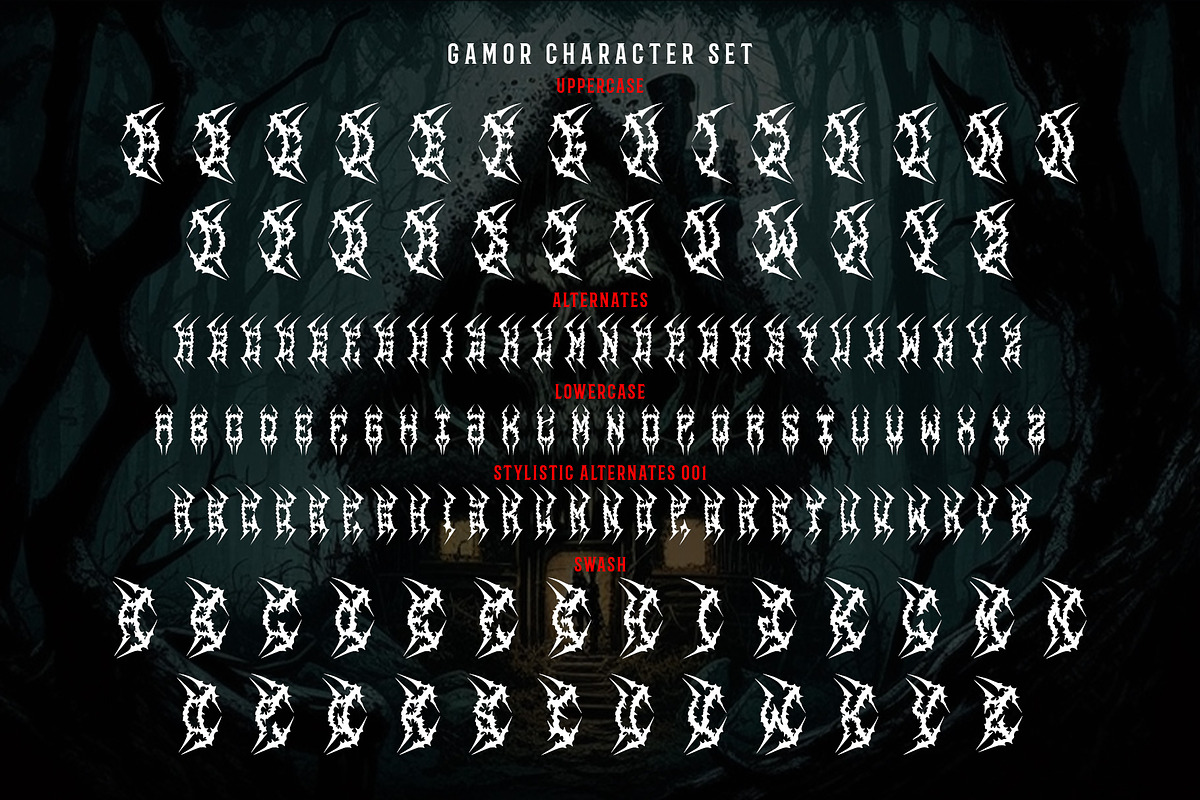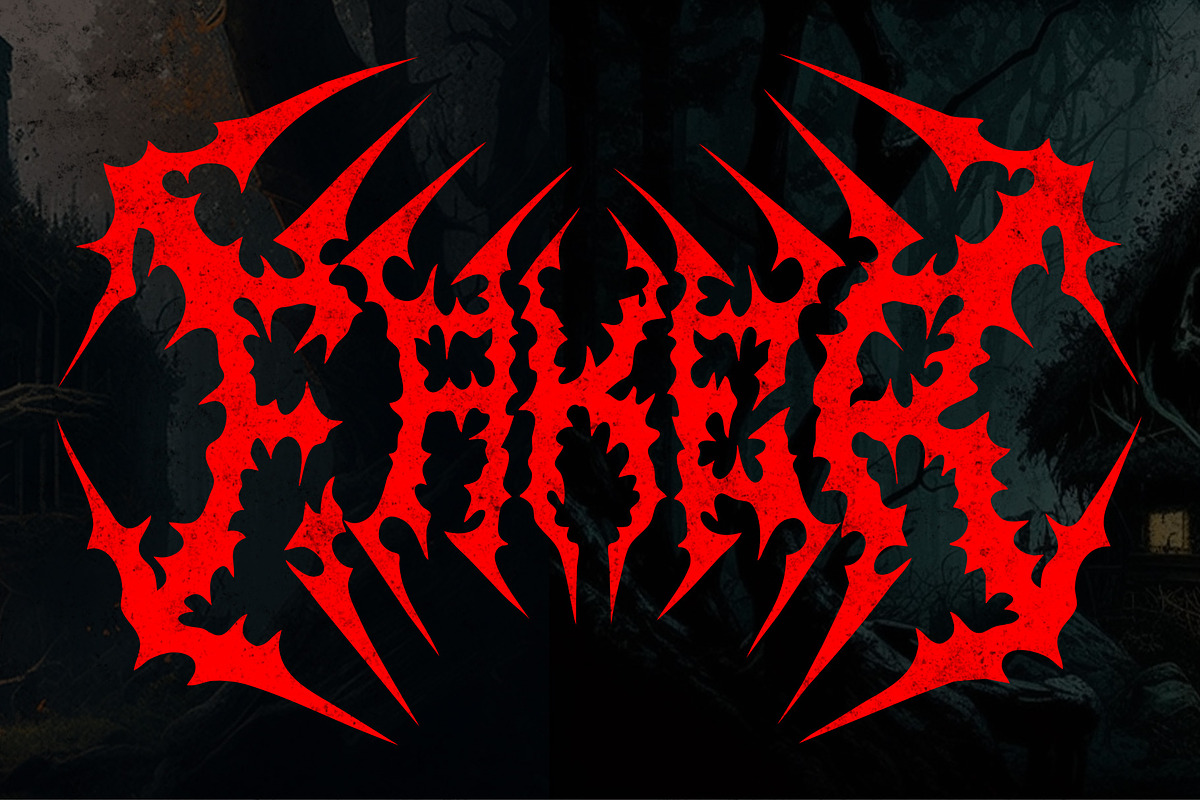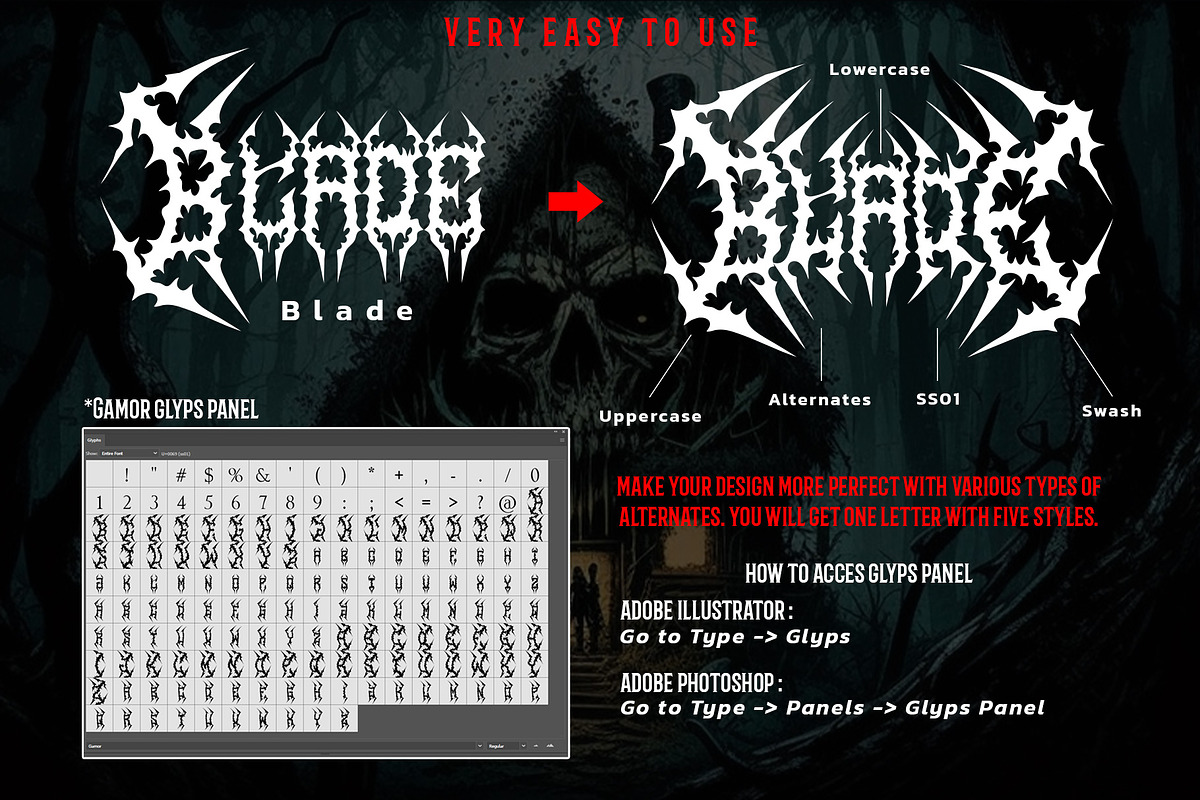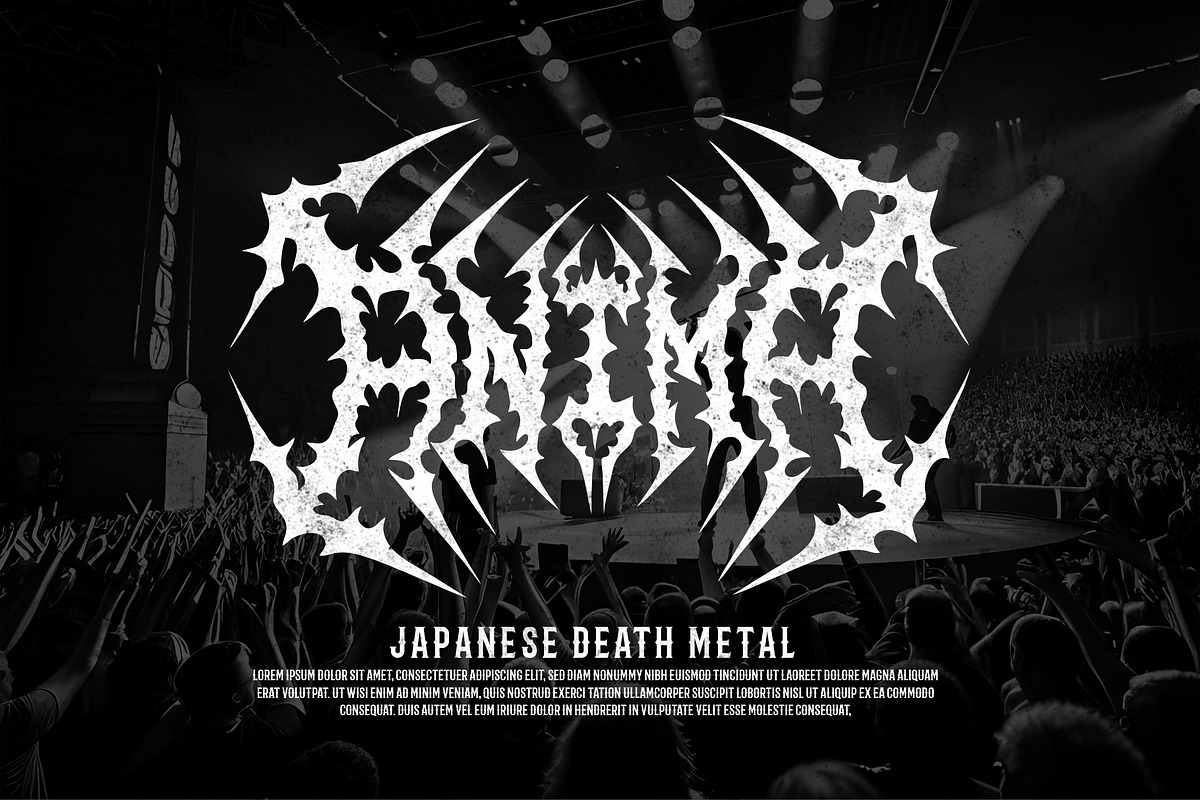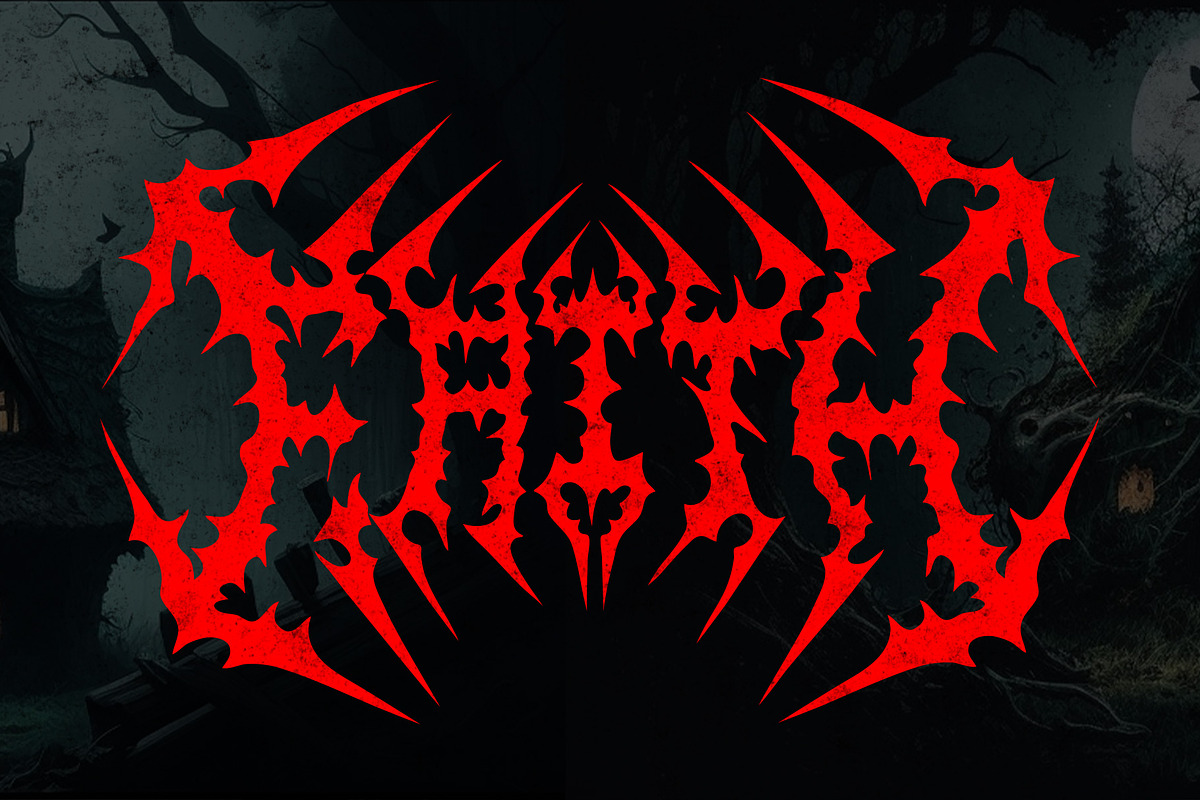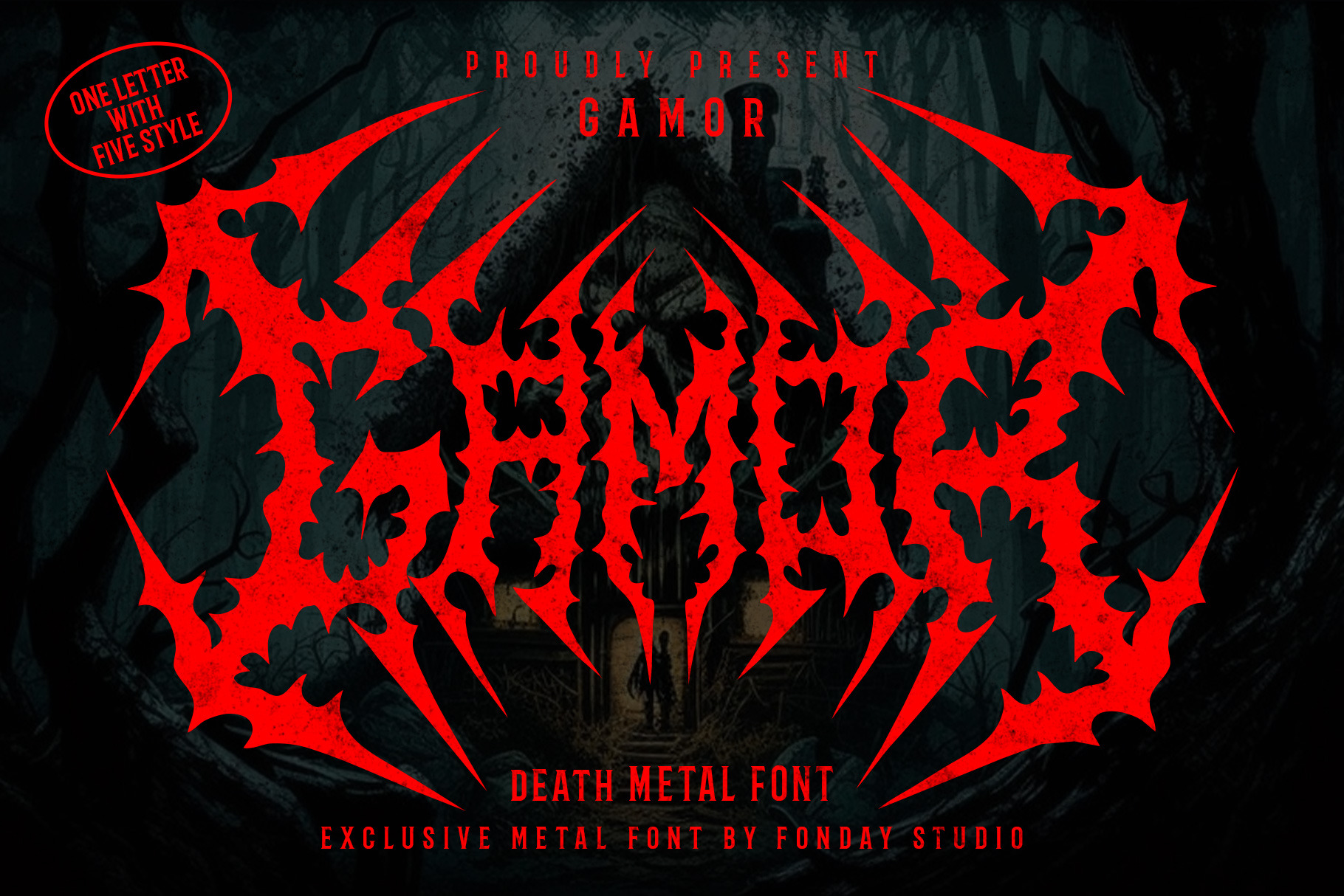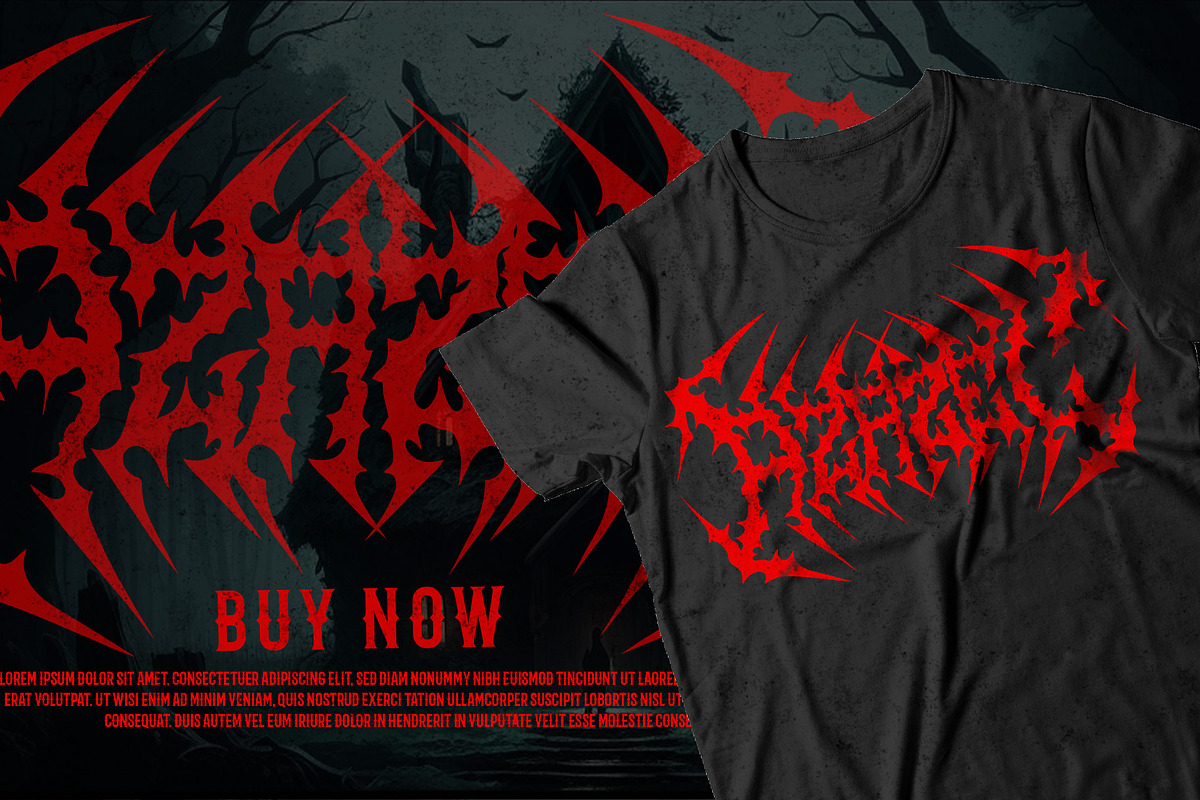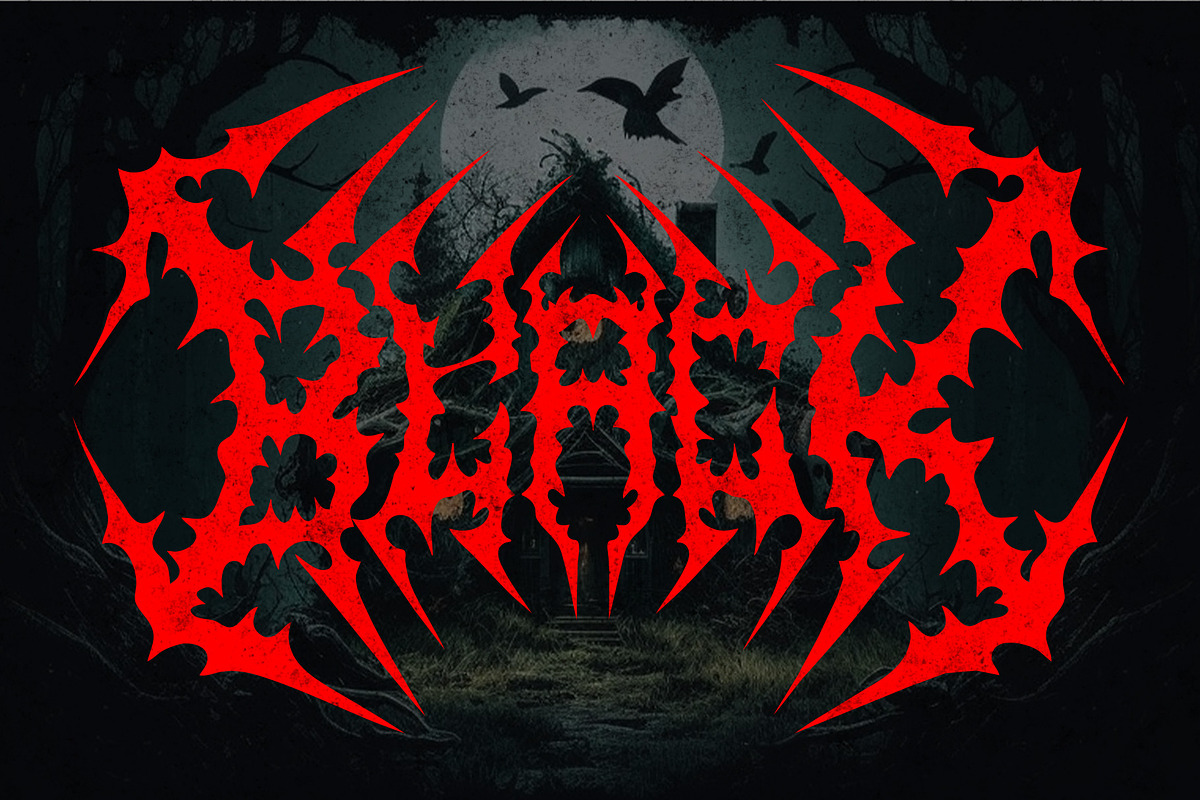
GAMOR – Black Metal Font
Introducing GAMOR, our bold and aggressive font that’s perfect for capturing the raw energy of metal music. With its sharp and edgy design, GAMOR is ideal for creating designs that reflect the intensity and power of metal bands. This font has 5 styles in one letter which makes it easy for you to be creative with this font. This font is perfect for your metal band Logo, T shirt Design, Poster, Tattoo and many more.
- All Caps Character
- Stylistic Alternate